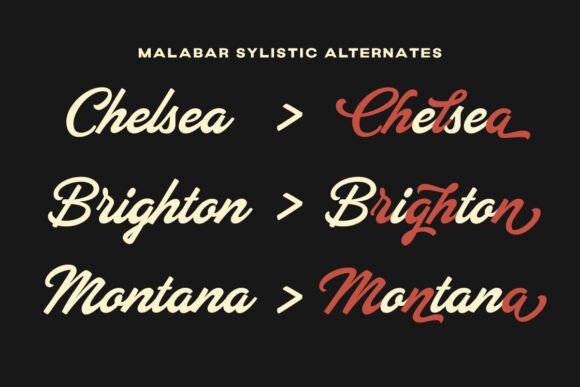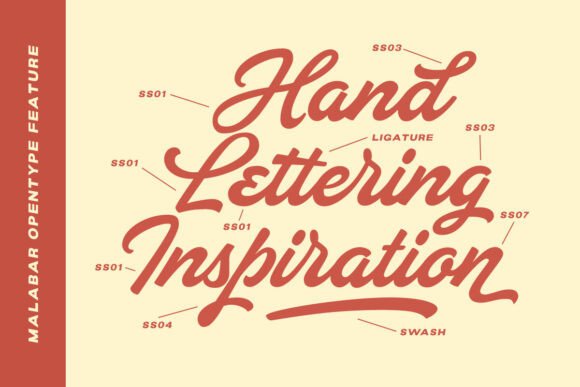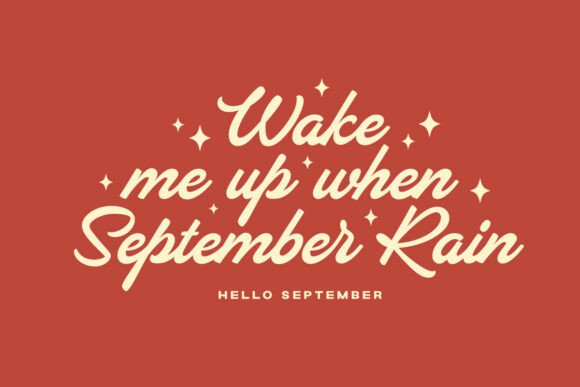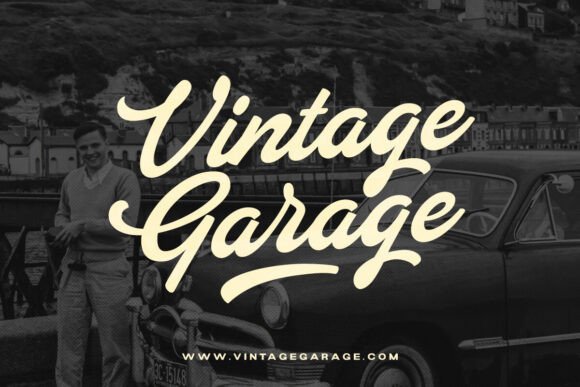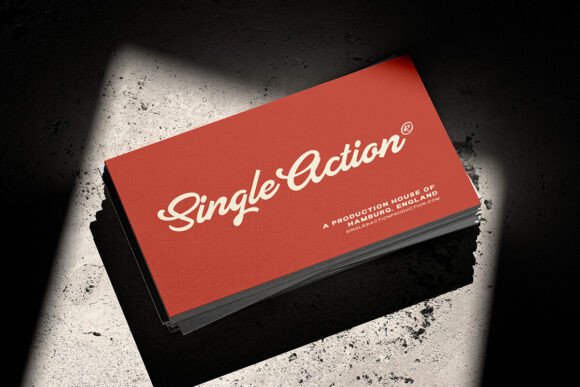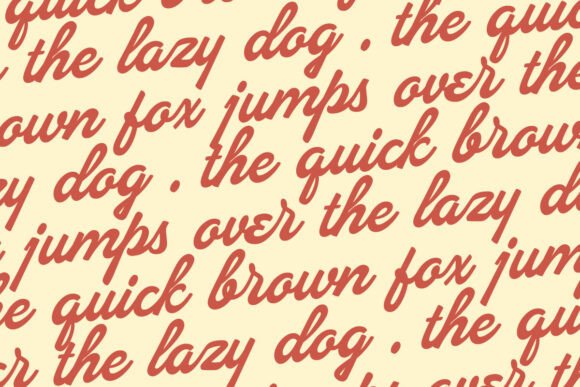
Introduction to Malabar Font
Malabar is a carefully crafted script typeface designed for those who appreciate timeless aesthetics and effortless versatility.
With its natural flow, bold strokes, and modern-vintage appeal, Malabar is perfect for logos, product labels, social media graphics, and stationery The inclusion of ligatures and alternate characters ensures each design is as unique and expressive as your vision.
Key Features of Malabar Font